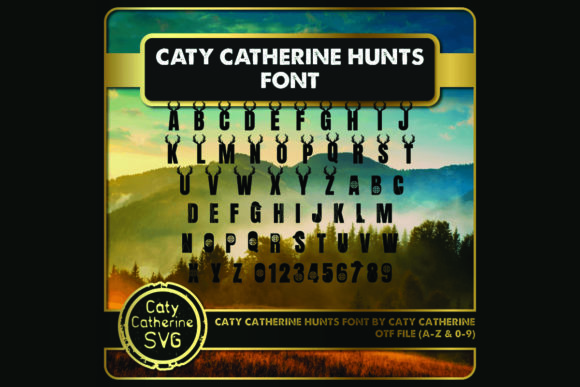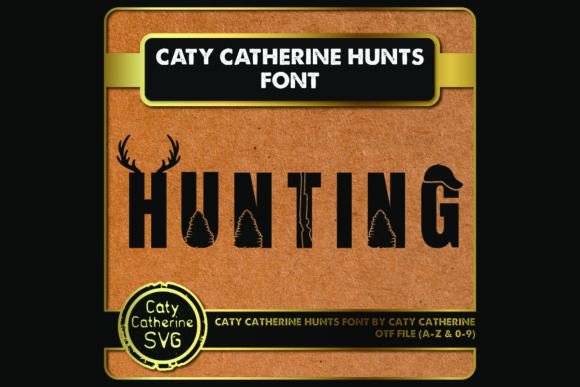
Introduction to Caty Catherine Hunts Font
Caty Catherine Hunts is a cool and uniquely designed decorative font.
Key Features of Caty Catherine Hunts Font
Why Choose Caty Catherine Hunts Font?
Caty Catherine Hunts Font offers exceptional quality and versatility, making it a valuable addition to your design toolkit. Whether you’re creating for personal projects or commercial use, Caty Catherine Hunts Font delivers professional results.